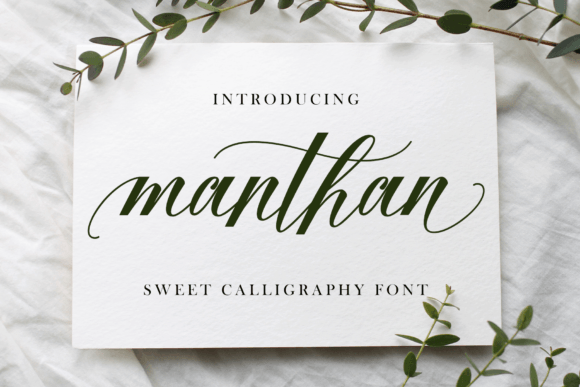
**Immerse yourself in the captivating world of Manthan Font, the script font that will redefine your design endeavors.**
Unleash your creativity with this elegant and alluring font, meticulously crafted to bring a touch of sophistication to your projects. Manthan's flowing handwritten style evokes a sense of timeless beauty, effortlessly adding a touch of class to any design.
Indulge in the limitless possibilities that Manthan Font presents. Its versatile nature makes it the perfect choice for a wide range of projects, from captivating logos and branding materials to eye-catching social media graphics and stunning website designs.
**Let Manthan Font be your muse as you embark on a journey of design excellence.**
Experience the joy of crafting designs that resonate with your audience, leaving an unforgettable impression with every stroke of the pen. Manthan Font empowers you to express your unique style and create designs that stand out from the crowd.
**Join the growing community of designers who have fallen in love with Manthan Font.**
Discover why this extraordinary font has become a favorite among design enthusiasts worldwide. Its versatility, elegance, and timeless appeal make it the perfect choice for any project that demands a touch of sophistication and creativity.